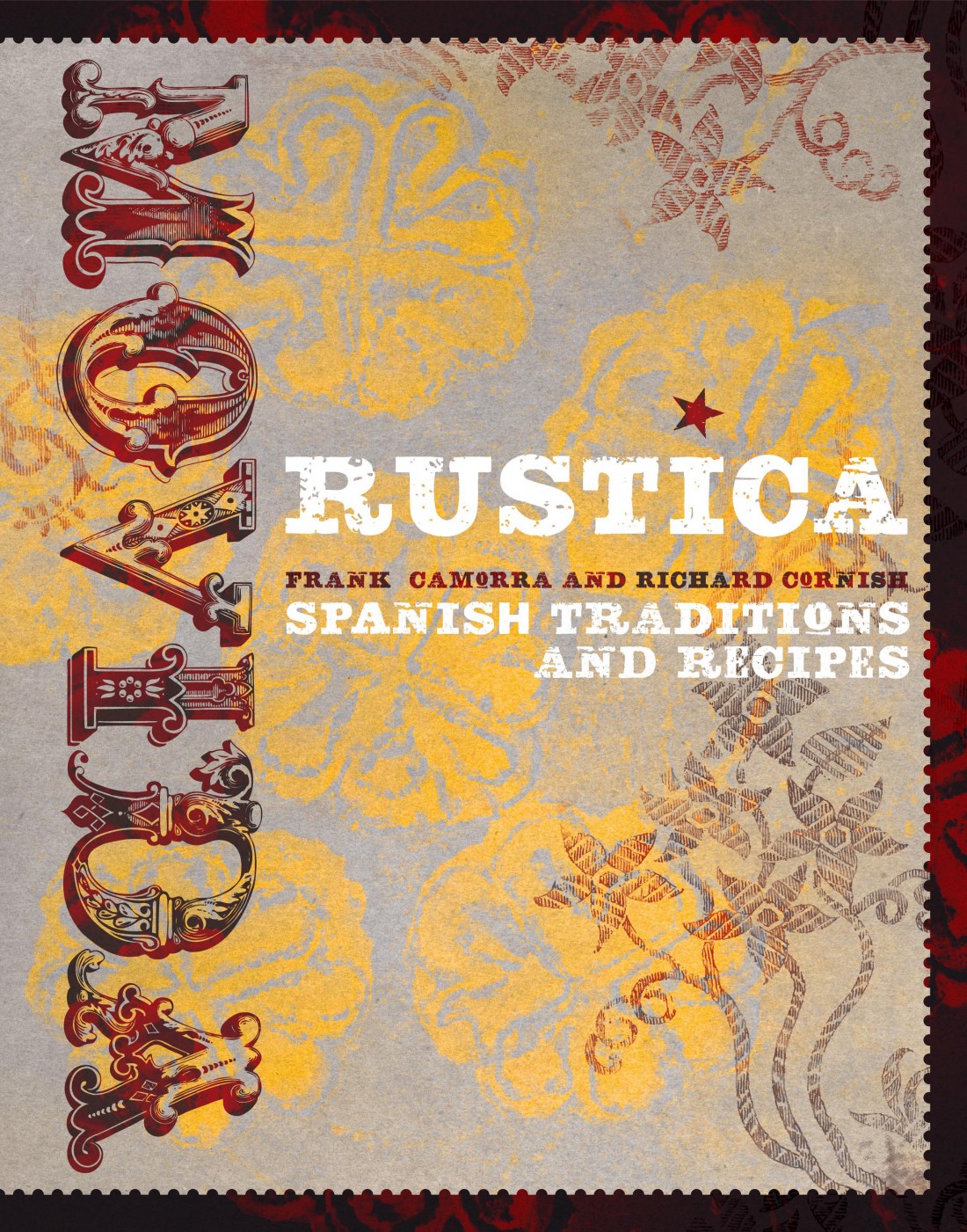
Spanish or Circus style Font (from a book cover) ID sought
Hi- total newbie here, looking for a similar font to the the Burgundy "Movida" shown here, it's from a cook book. Mucho gracias in advance if anyone can help out....Buenos.
Solved by oobimichael
Woah. Not just close, but spot on. I won't even bother to ask how you knew- but thank you! Mucho mucho gracias.